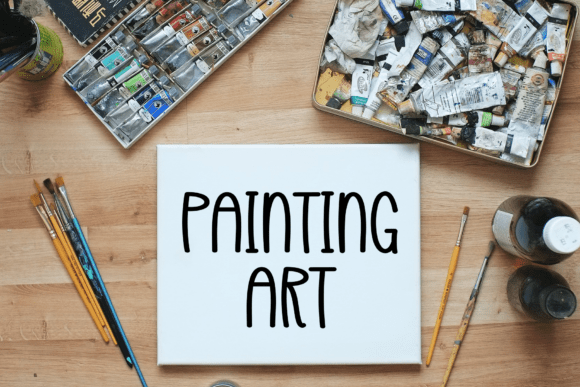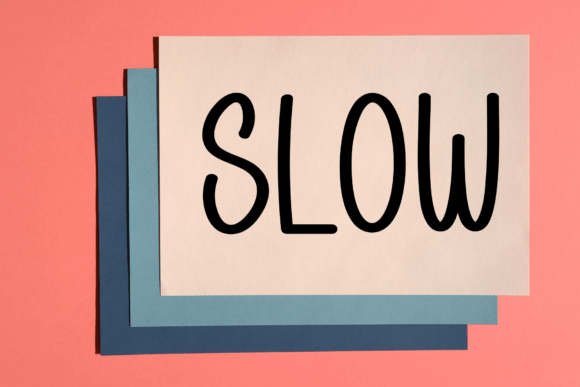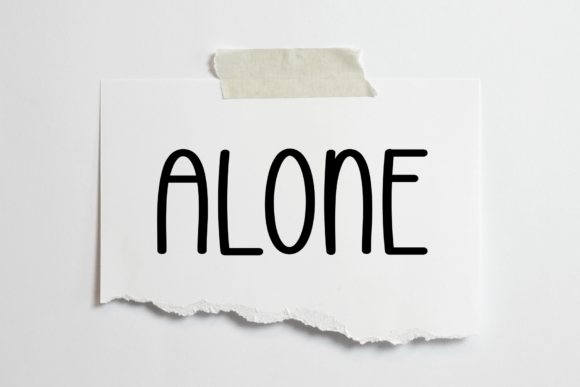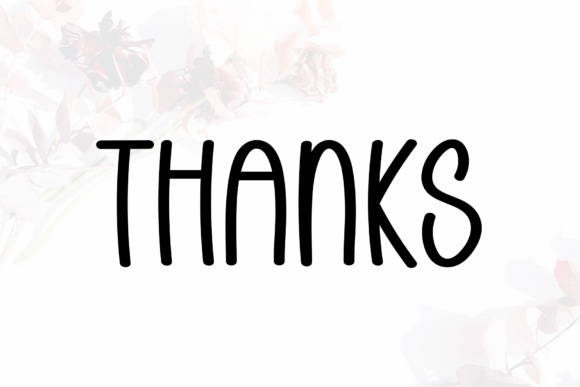
Introduction to Smiley Night Font
Have you ever found yourself lying under the stars, lost in the gentle twinkling of the night sky? The Smiley Night Font captures the essence of such moments – a feeling of serenity and joy that’s both calming and uplifting. This enchanting, slender display typeface is a must-have design resource for any creative project that requires a touch of whimsy and sophistication.
Characterized by its elongated vertical strokes and soft, rounded terminals, the Smiley Night Font is a high-quality addition to any design arsenal. Its organic, hand-drawn curves give each word a friendly “bounce,” making it perfect for projects that need to maximize vertical space while maintaining a light, airy feel. With its clean lines and transparent background, this font is highly legible even when used for longer quotes on social media.
Whether you’re designing nursery wall art, lifestyle blog headers, or minimalist book covers, the Smiley Night Font is a fantastic choice. Pair it with a bold, chunky sans-serif to create a dynamic visual contrast that’s sure to grab attention. And the best part? It’s available for free download, making it an invaluable resource for designers of all levels.
Key Features of Smiley Night Font
- Unique, emotive, and playful font style with a transparent background for seamless integration
- Supports a wide range of languages, making it a versatile design resource for global creative projects
- Designed to add a touch of whimsy and fun to any design, perfect for creative projects that require a playful tone
Honest Review: Smiley Night Font
As a designer, I’m always on the lookout for high-quality design resources that can elevate my creative projects. Recently, I stumbled upon the Smiley Night Font, and I’m excited to share my honest review.
- Unique and creative design style that sets it apart from other fonts
- Perfect for adding a touch of whimsy and fun to my designs
- Transparent background makes it easy to use on different backgrounds and designs
Overall, I’m impressed with the Smiley Night Font’s high quality and unique design style. It’s a great addition to my design resource library and has already been used in several of my creative projects.
- May not be suitable for more formal or professional designs
- Some characters may not be available in certain font sizes or styles
While the Smiley Night Font has some limitations, I still highly recommend it for designers looking to add a touch of creativity and fun to their projects.
Designing with Smiley Night Font
Tips for Getting the Most Out of Smiley Night Font
Use the Smiley Night Font in combination with other design elements, such as graphics and images, to create a cohesive and visually appealing design. Experiment with different font sizes and colors to add depth and interest to your project.
Common Use Cases for Smiley Night Font
The Smiley Night Font is perfect for creative projects, such as social media graphics, blog posts, and advertising materials. You can also use the font in educational projects, such as presentations and documents, to add a touch of fun and whimsy.
Alternatives to Smiley Night Font
Fontin is a high-quality, free font suitable for creative projects that require a sophisticated yet playful design. It features a transparent background and is ideal for designers looking for an alternative to Smiley Night Font.
Q: Does the Smiley Night Font have a transparent background?
Yes, the Smiley Night Font features a transparent background, making it ideal for use on images and designs with complex backgrounds. This allows designers to easily layer the font over other elements without compromising its visibility.